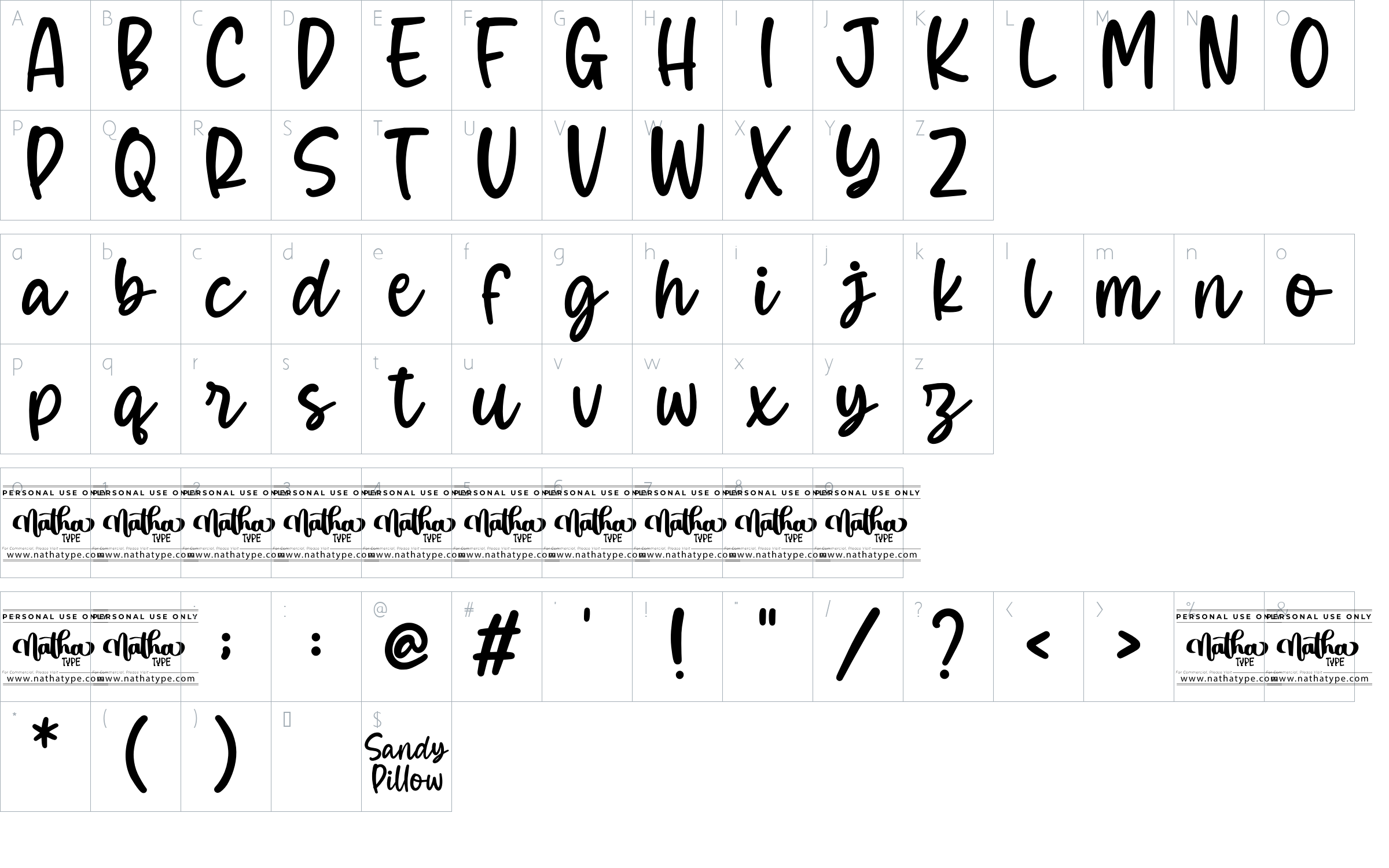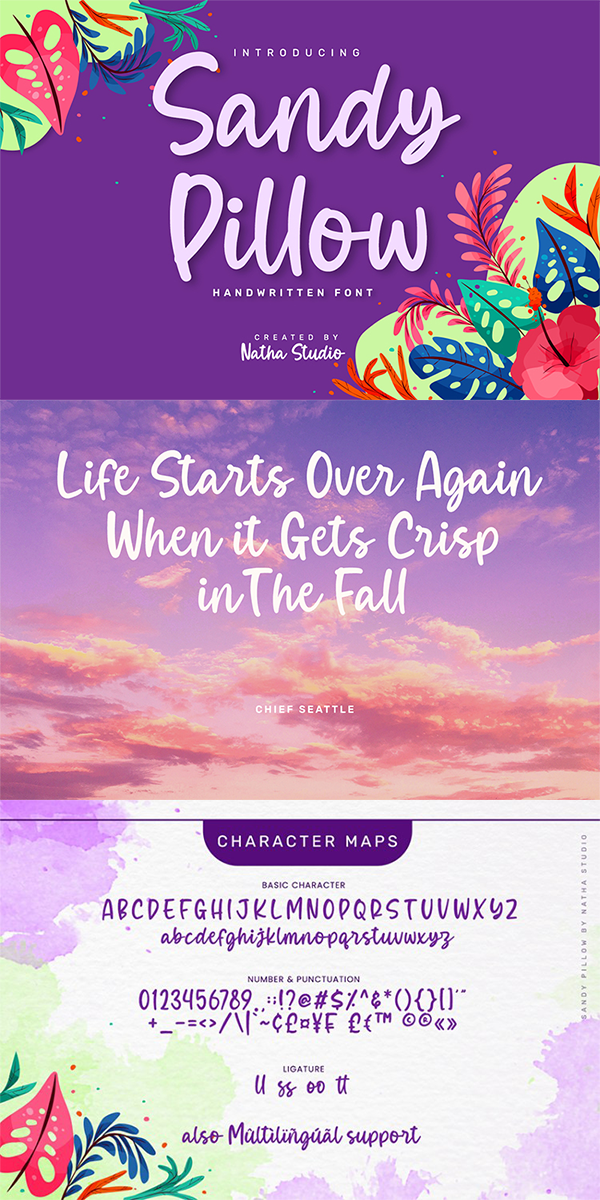
Sandy Pillow Font
About Sandy Pillow
Sandy Pillow is a beautiful handwritten font. It brings an attractive typeface. Made for any professional projects. It is the best for logos, branding, wedding invitations, and greeting cards to social media quotes, branding, and more! Outstanding in a wide range of contexts.
Featured :
-Standard Ligatures